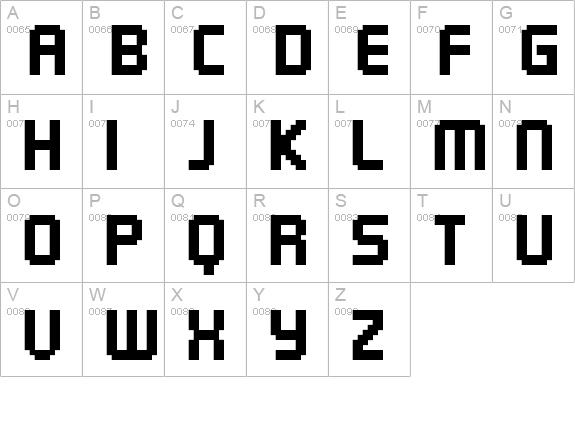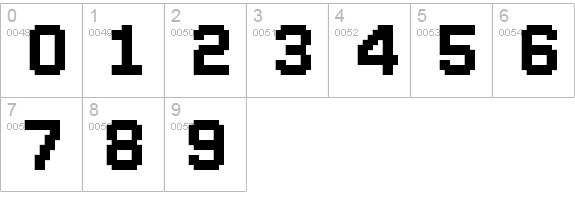
FFF Silver Extended is a distinctive, extended-width variant in the FFF typeface family \xE2\x80\x94 well suited to design and typography projects.
The FFF Silver Extended font is a sleek and modern typeface that exudes sophistication and elegance. With its elongated letterforms and sharp edges, it is perfect for creating eye-catching headlines and titles. This versatile font can be used in a variety of design projects, from branding to editorial layouts. What makes the FFF Silver Extended font even more appealing is that it is completely free to download at FontsMarket.com. This means that you can add this stunning typeface to your font library without any cost, making it a valuable resource for designers and creatives alike. Don't miss out on the opportunity to enhance your projects with the FFF Silver Extended font today!